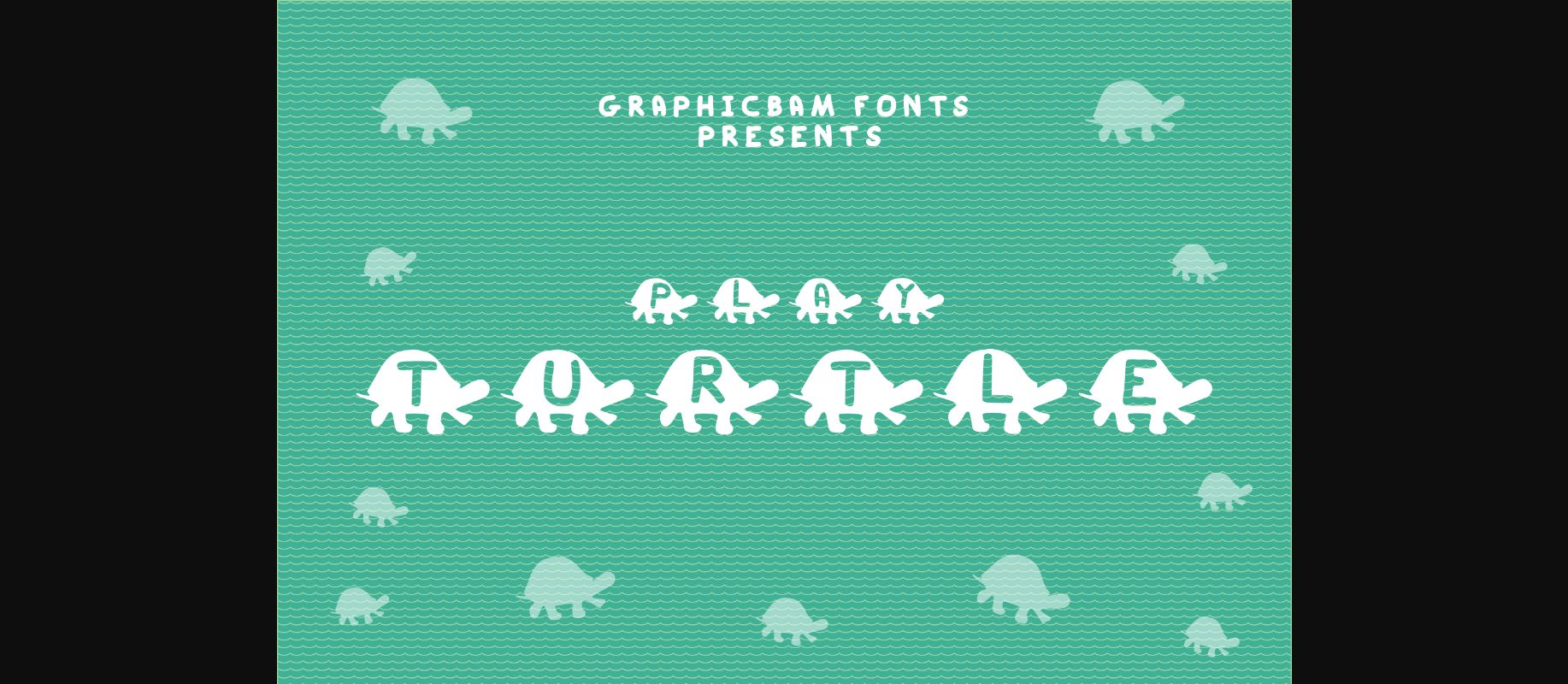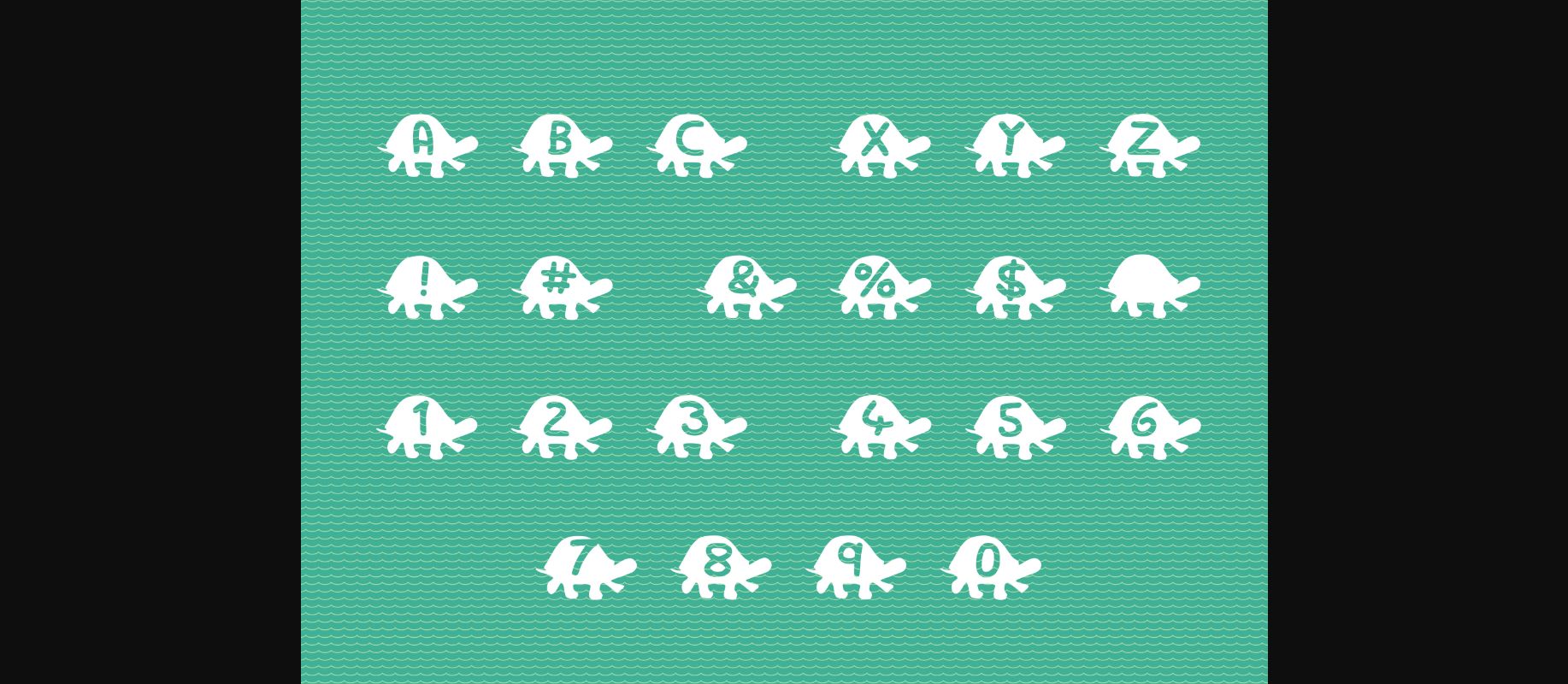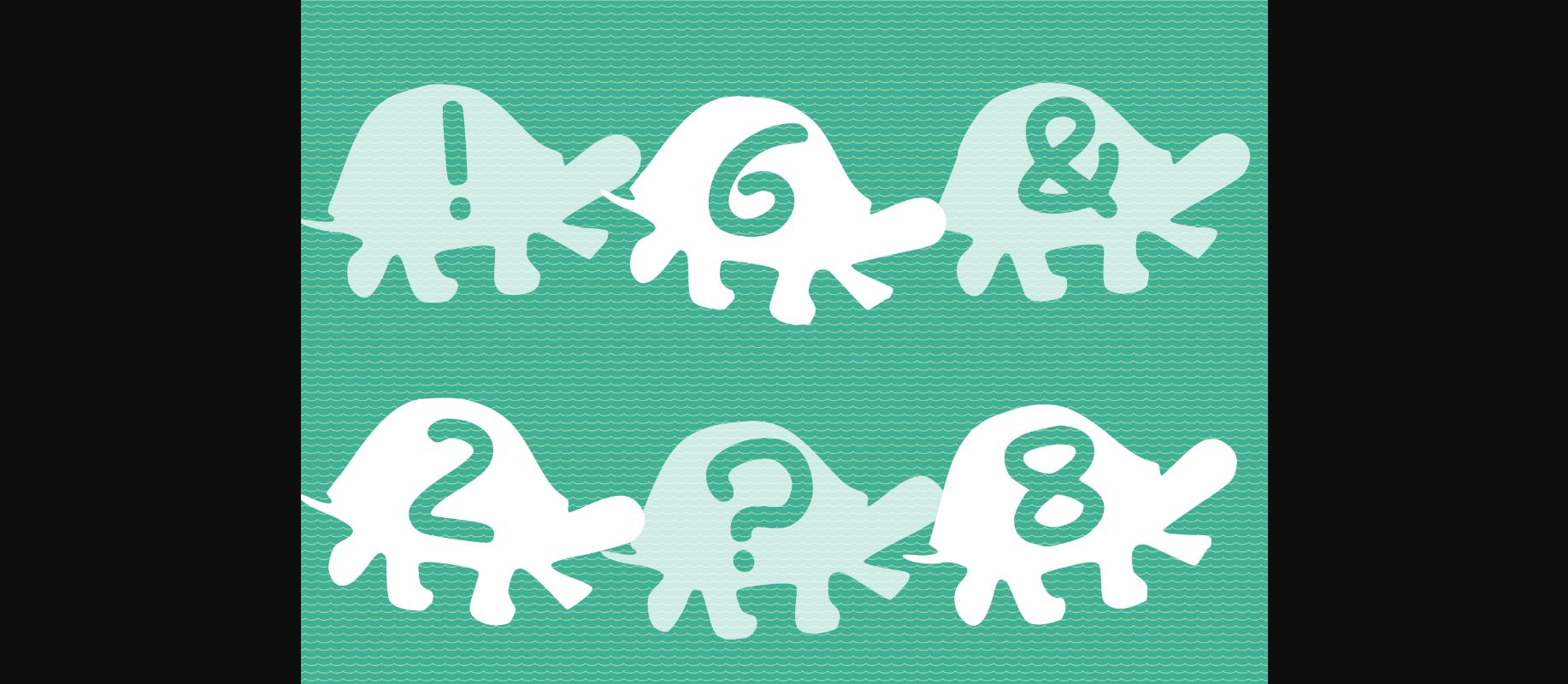
About Play Turtle Font
Play Turtle is a lovely decorative font filled with turtles and cute simple letters. It is a wonderful typeface for creating friendly covers for books, posters, children’s designs, apparel, or anything else.